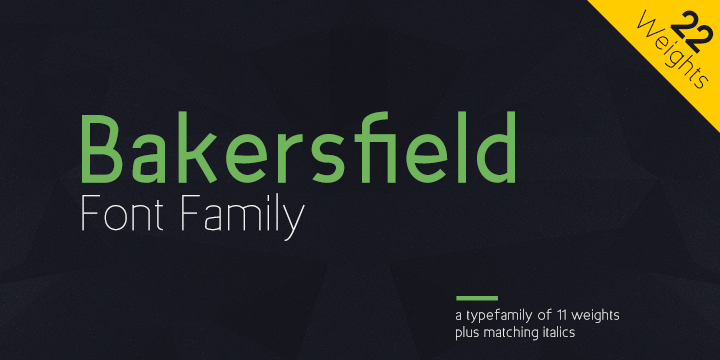
Preview and download Bakersfield Font. Created by Osama El Khalfaoui in Basic Sans serif styles with Free for personal use license.
Bakersfield is an elegant geometric sans-serif typeface of 22 weights. Bakersfield draws inspiration from 1920s geometric-style typefaces by having clean and highly legible forms constructing the type. The family is characterized by excellent legibility both in print and on the web, a well-finished geometric design, highly precise kerning. NOTE: This font is for PERSONAL USE ONLY! To purchase a commercial license, visit: http://crtv.mk/qr8q |